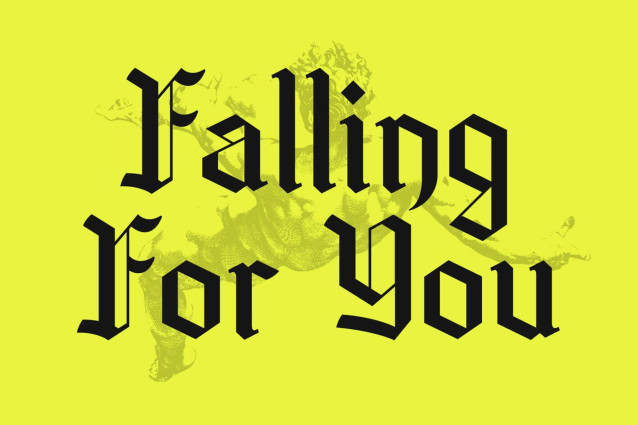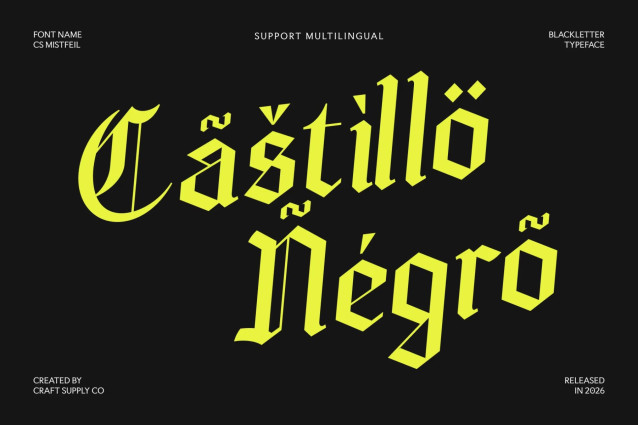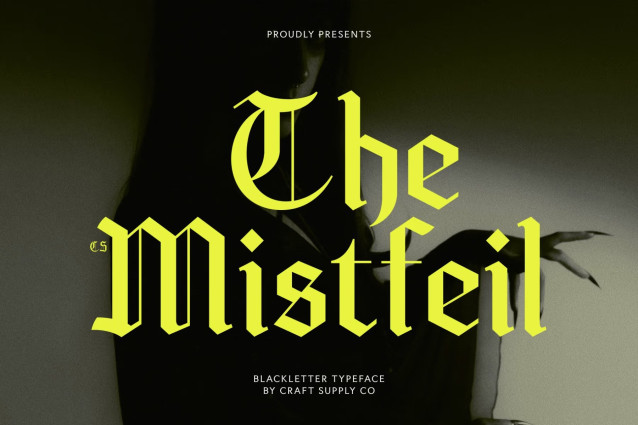
CS Mistfeil – Gothic Horror Font: Where Blackletter Darkness Meets Haunting Atmosphere
Blackletter Strokes with Eerie Character
This is a gothic horror display font that fuses the timeless beauty of Blackletter calligraphy with a chilling, macabre atmosphere. Its sharp strokes, dramatic angles, and intricate Gothic details create typography that feels mysterious, unsettling, and deeply immersive. Every character is crafted to evoke suspense and darkness while preserving the elegance of traditional blackletter forms.
Haunting Design with Cinematic Presence
Inspired by horror fiction, supernatural folklore, and Gothic architecture, this font delivers a bold visual identity filled with tension and intrigue. Its expressive letterforms balance ornate craftsmanship with an ominous mood, making every headline feel theatrical, atmospheric, and unforgettable.